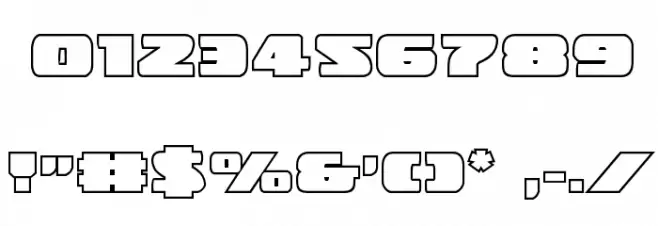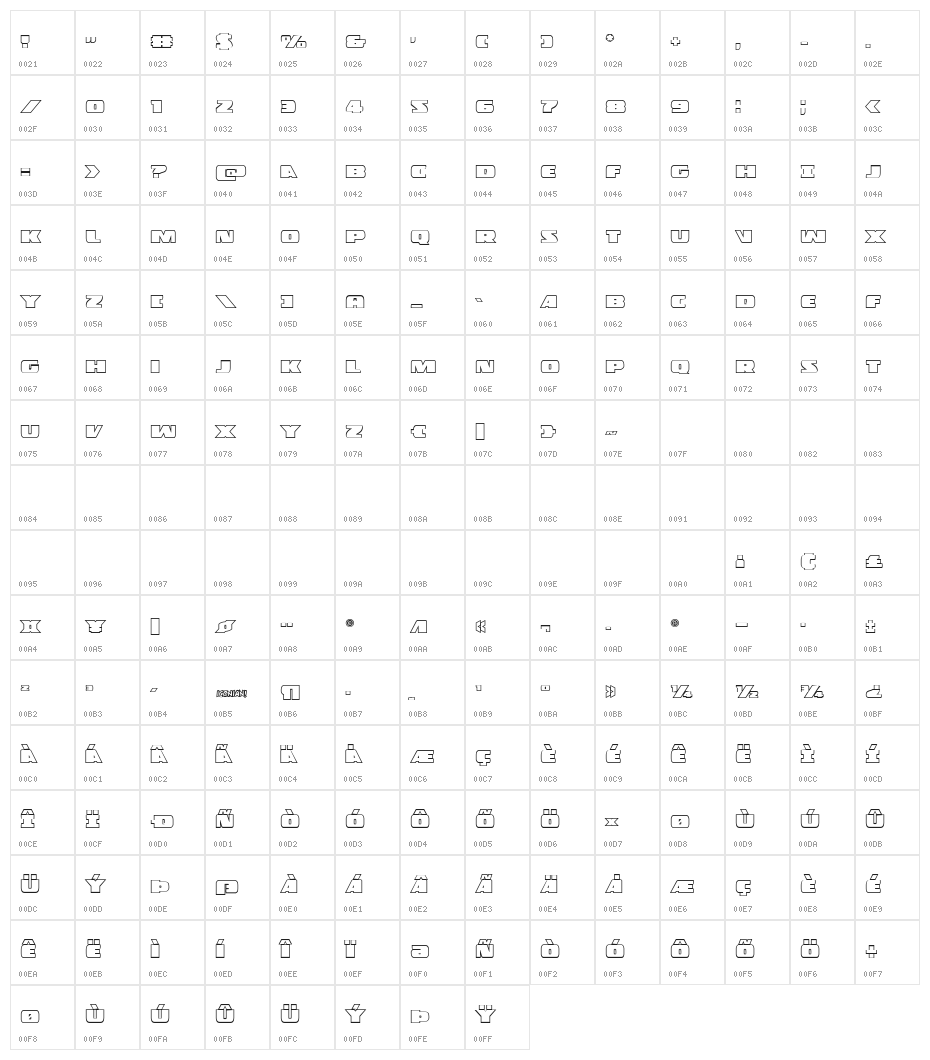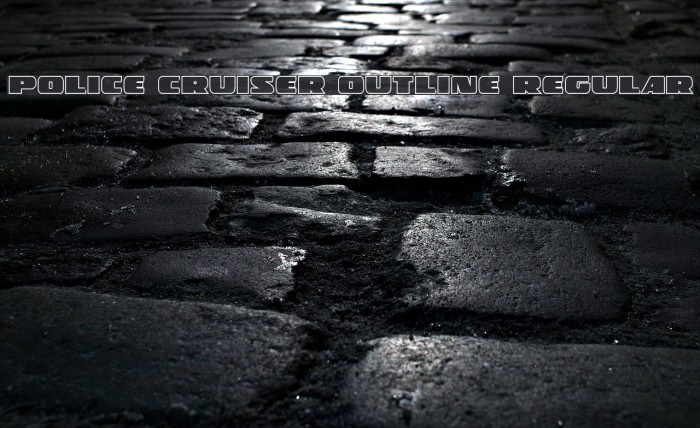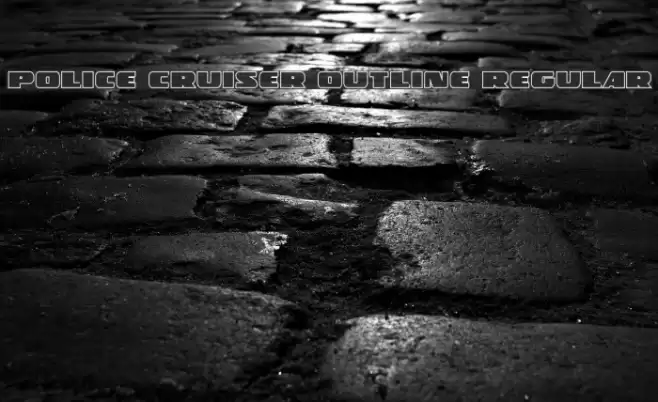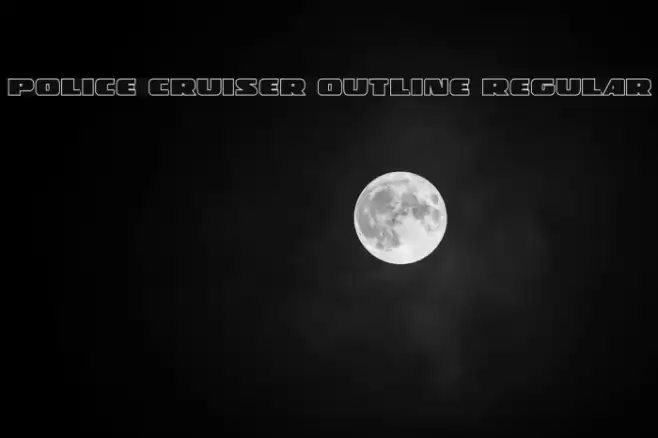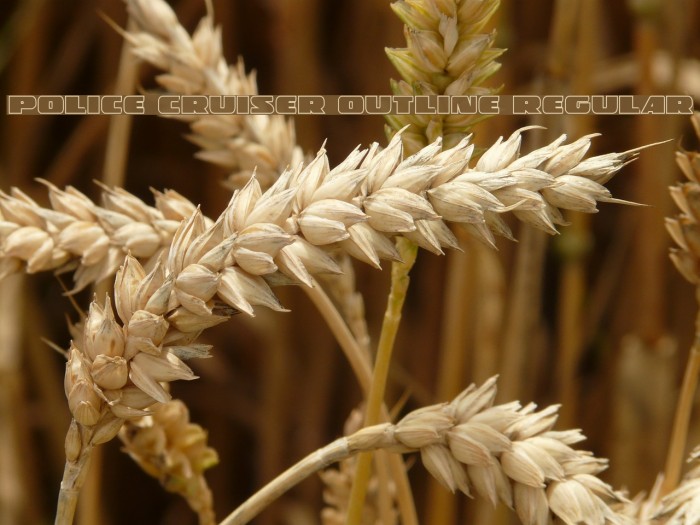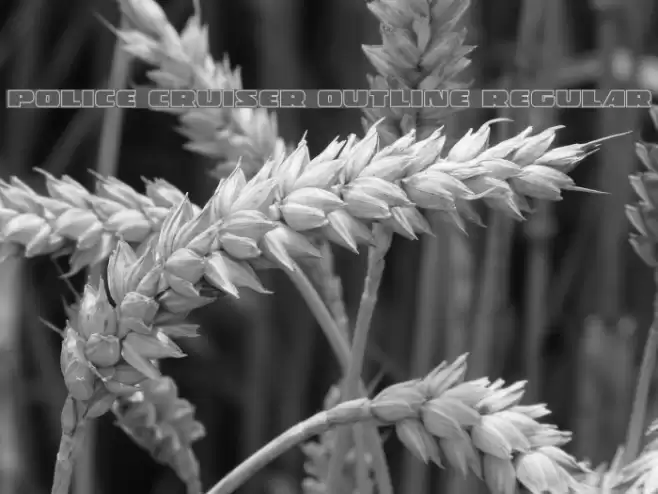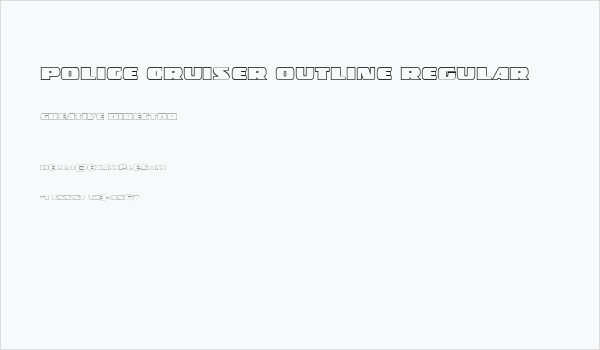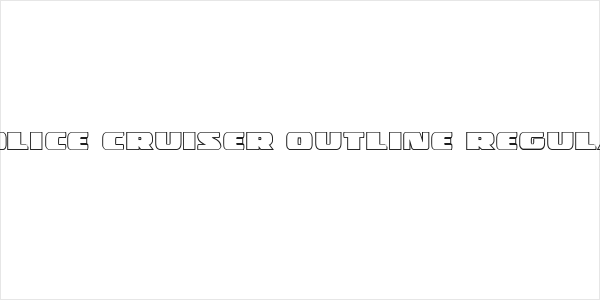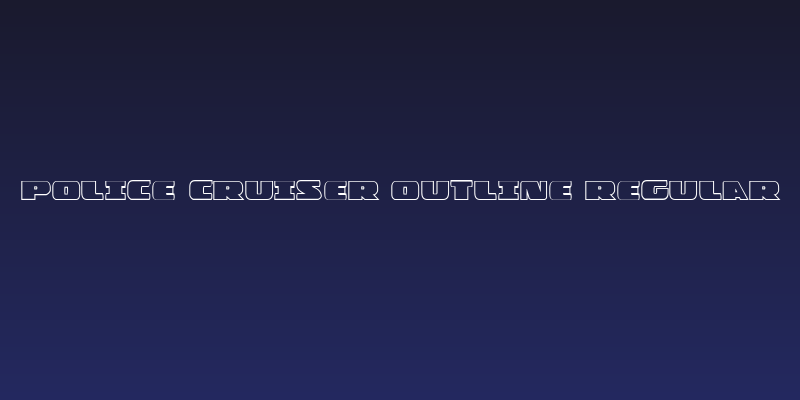
Police Cruiser Outline Regular Font
Police Cruiser Outline Regular Description
This font features a bold, outlined style with a geometric and futuristic appearance. The characters are uppercase with a uniform thickness, creating a strong visual impact. The design is clean and structured, with sharp angles and straight lines that give it a modern and technical feel. The numbers and special characters maintain the same bold outline, ensuring consistency across all glyphs. This font is ideal for projects that require a standout, attention-grabbing typeface.
| Proposed Projects | Ideal for branding, posters, video game titles, and any project needing a strong, modern aesthetic. |